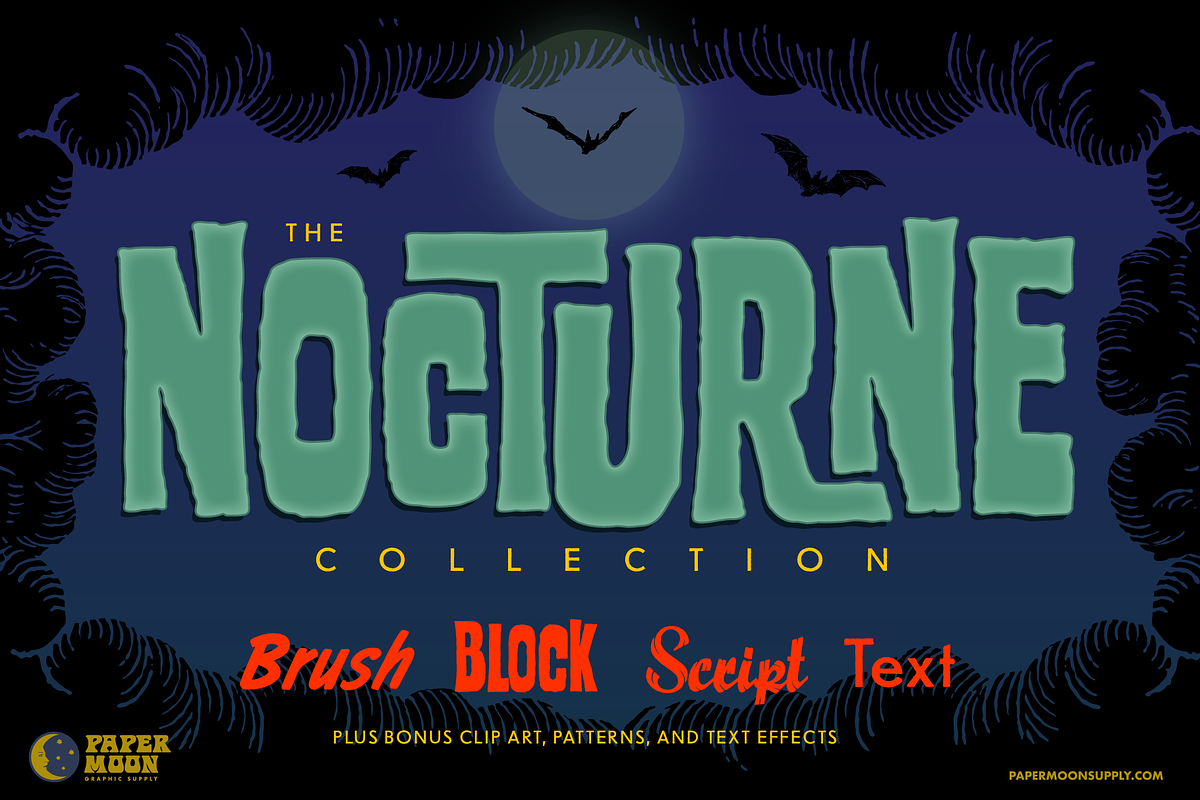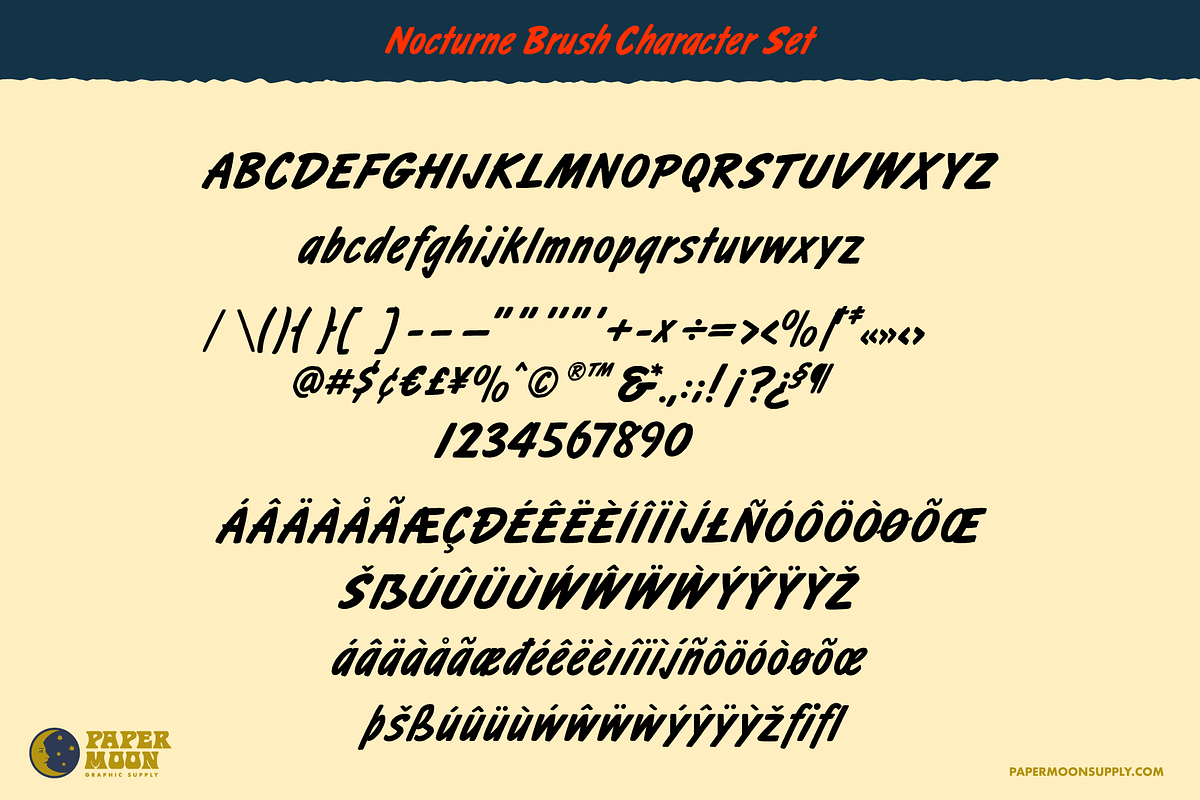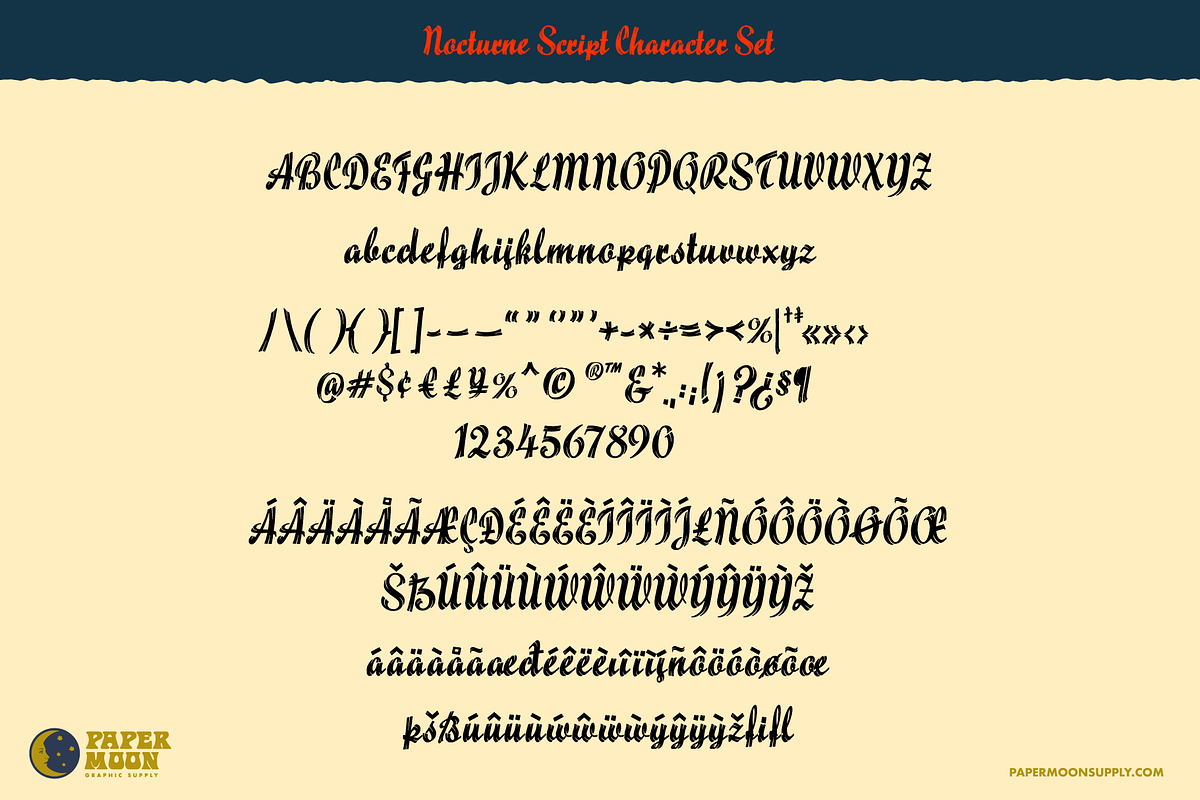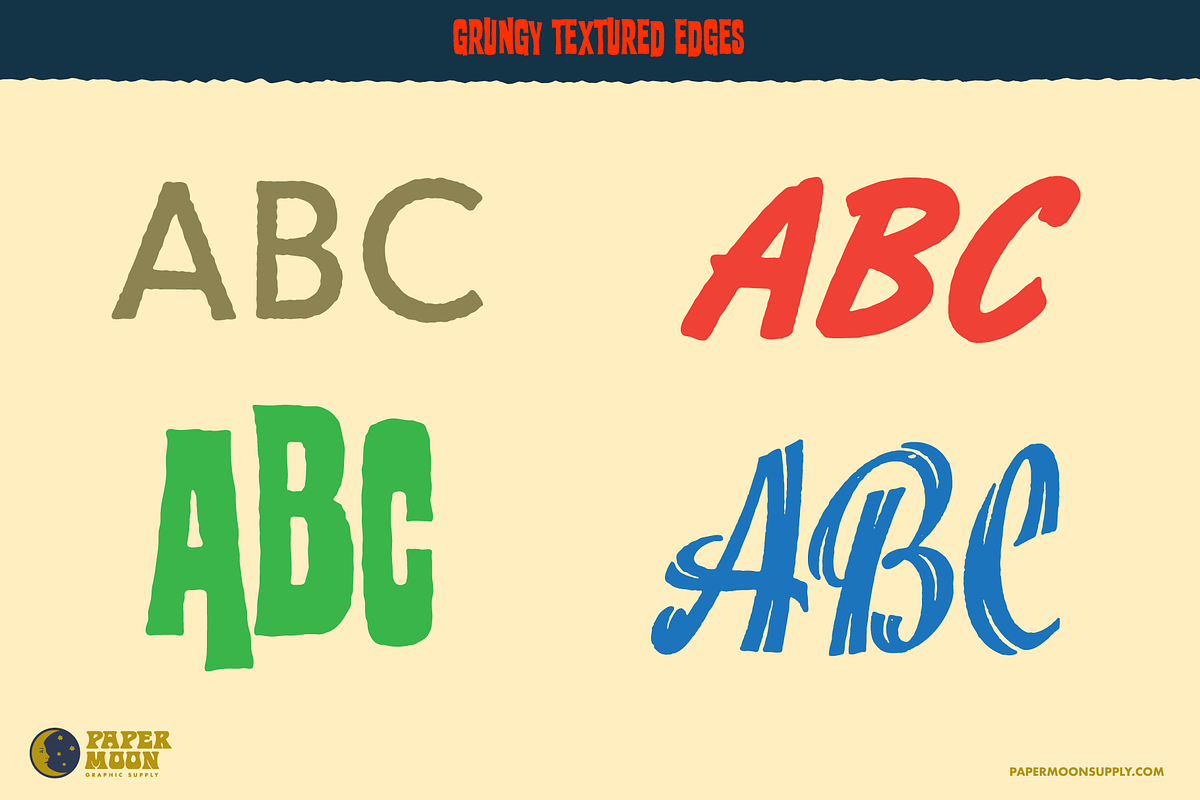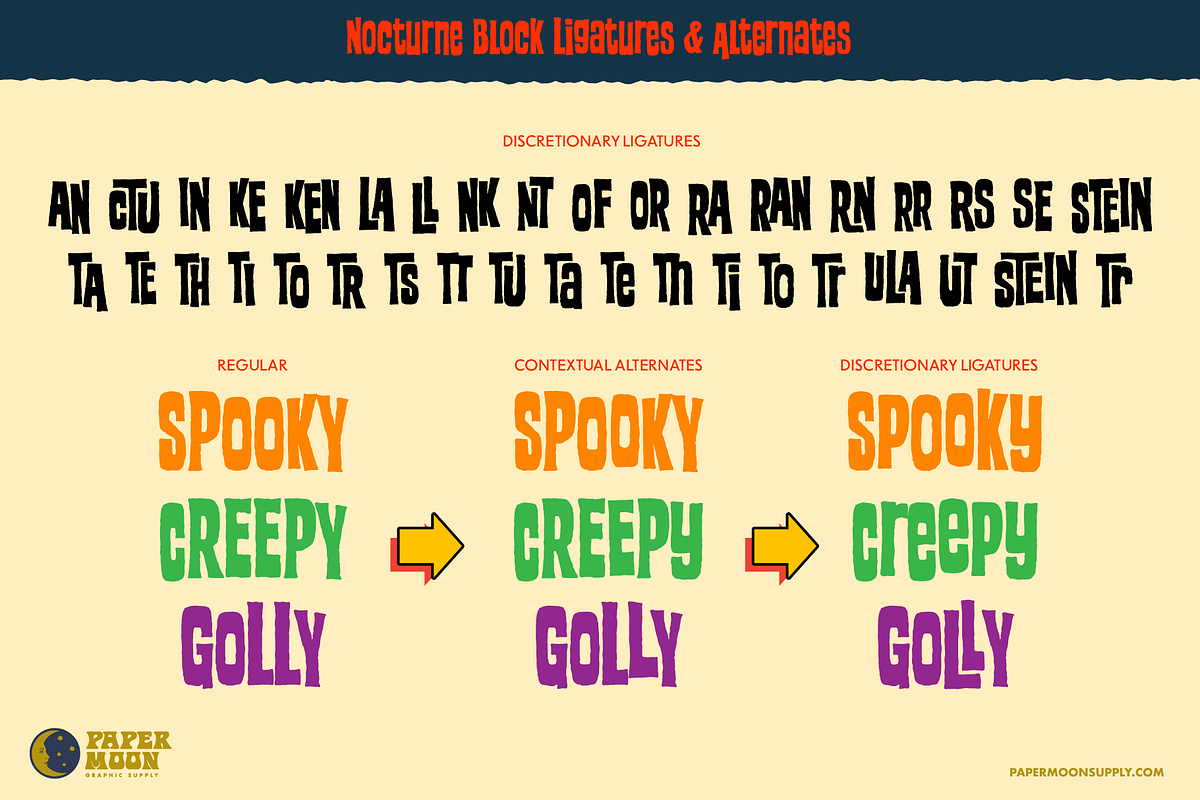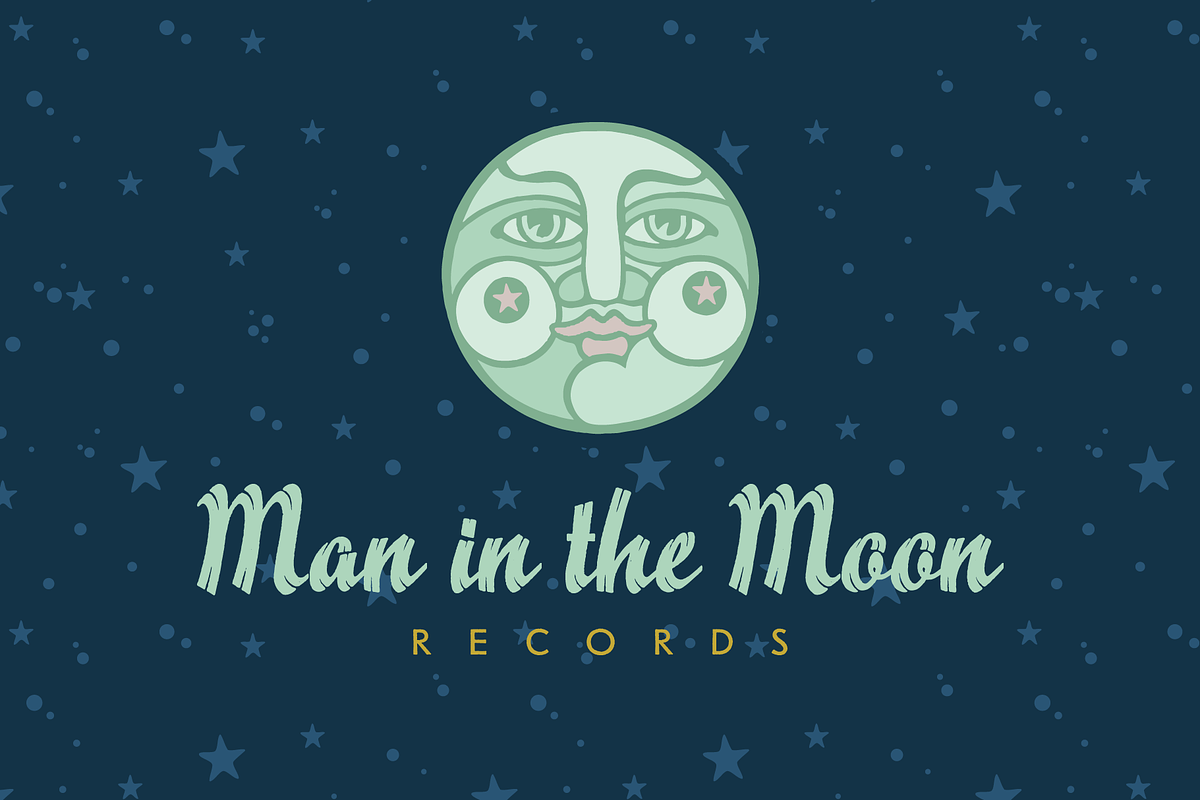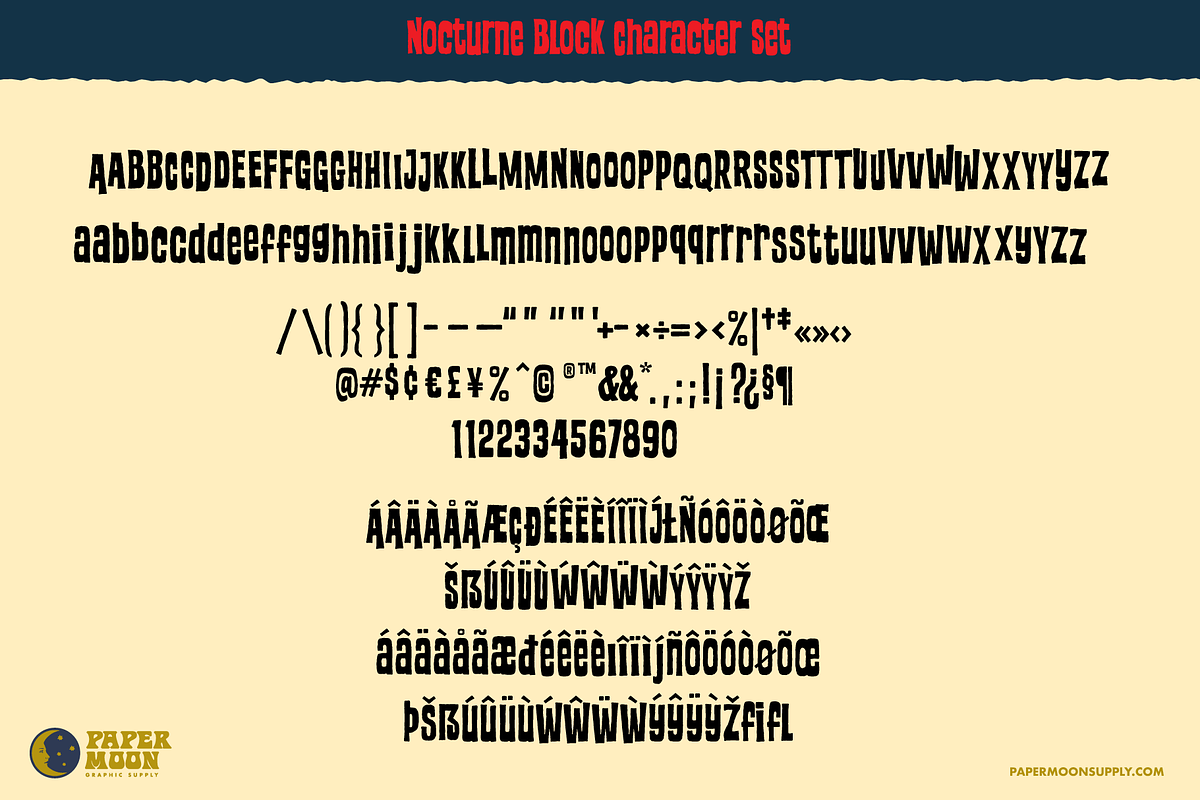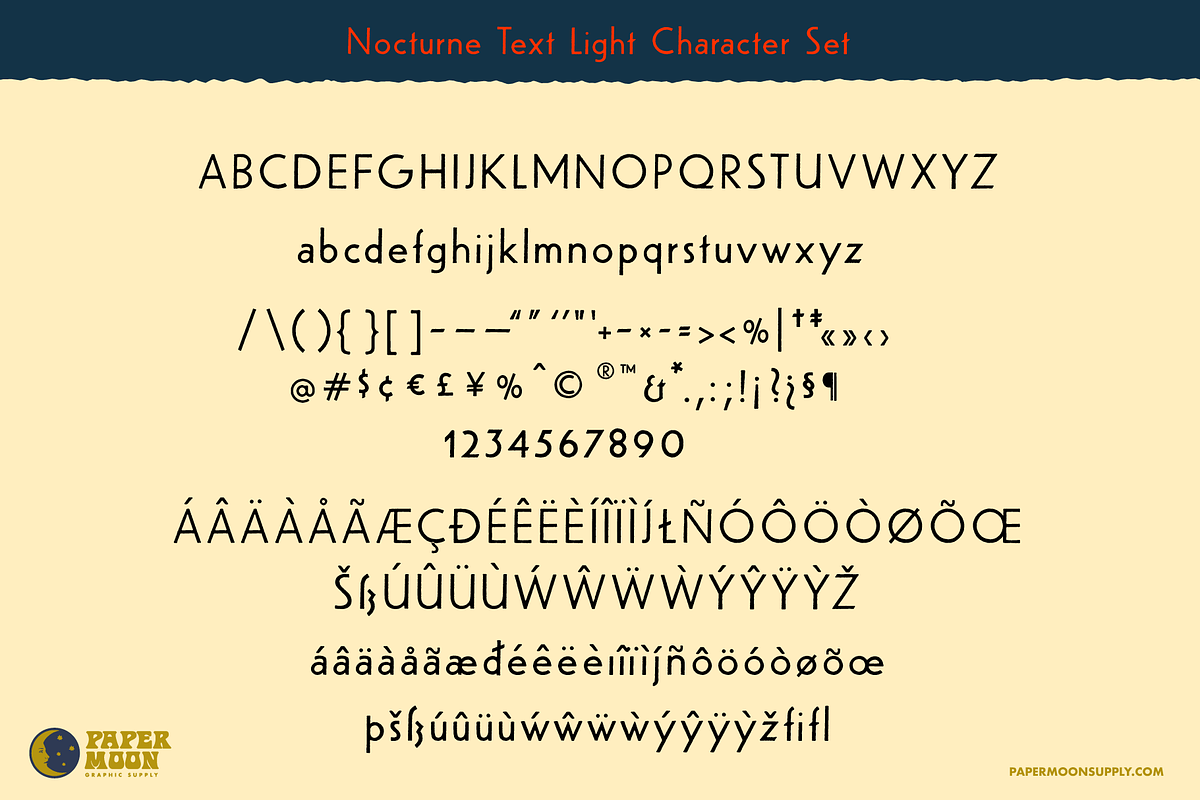
Nocturne Vintage Horror Collection
PM Nocturne Collection
Capture vintage horror vibes with The Nocturne Collection — a four-font set crafted to add bold, authentic retro style to your designs. This set features Brush, Block, Script, and Text fonts inspired by mid-century posters, pulp covers, and hand-lettered signage.
- Four styles: Block, Script, Brush, Text
- Complete alphabet, numbers, and punctuation sets
- Advanced kerning and OpenType features
- Ligatures and contextual alternates
PM Nocturne was created by award-winning illustrator and designer Scott Banks.